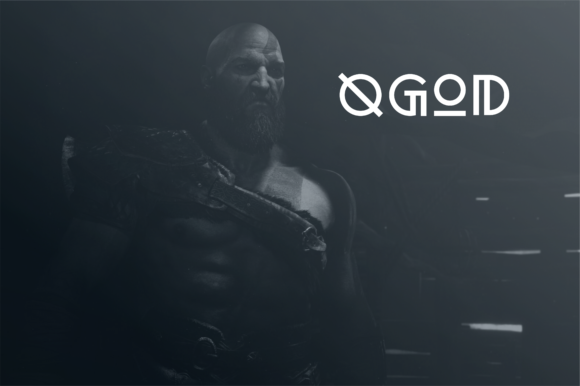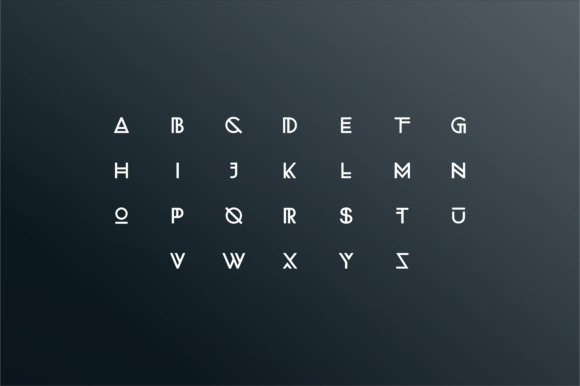
Introduction to Qgod Font
Have you ever been working on a creative project, staring at a blank page, and suddenly, the perfect font pops into your mind? For designers, this moment is pure magic. It’s the spark that sets the tone for an entire design, elevating it from ordinary to extraordinary. And that’s exactly what Qgod Font is – a game-changer for any design project.
As a high-quality, free download, Qgod Font is an incredible resource for designers looking to add a unique touch to their work. Its sleek, minimalistic design is perfect for web designs, business cards, and anything else that requires a futuristic feel. With a transparent background, you can easily layer it over any image or background, giving you endless possibilities for creative expression.
Key Features of Qgod Font
- High-quality design: Qgod Font is a carefully crafted font designed for creative projects, offering a unique and sophisticated look.
- Large character set: The font includes a large character set, including Latin, Cyrillic, and Greek alphabets, making it suitable for a variety of languages.
- High-resolution design: Qgod Font is designed at 300 DPI, ensuring crisp and clear typography even at high resolutions.
- Perfect for creative projects: Qgod Font is ideal for use in creative projects such as branding, packaging, and advertising, where a unique and sophisticated look is required.
Honest Review: Qgod Font
I recently had the chance to try out the Qgod Font, and I’m excited to share my thoughts on this free download. Overall, I was impressed with the quality and versatility of this font.
Here are some things that worked well: ✨
- High quality design: The Qgod Font has a sleek and modern aesthetic that would be perfect for a creative project.
- Transparent background: This made it easy to use the font on top of any image or background.
However, I did encounter a few limitations: ⚠️
- Limited character set: The font only includes a basic set of characters, which may not be sufficient for a complex design project.
- No bold or italic versions: While the regular font is great, it would be nice to have some variations to add some depth to a design.
Overall, I was pleased with the Qgod Font and would recommend it as a design resource. While it may not be suitable for every project, it’s a great option for simple designs or creative projects that need a clean and modern font.
Tips for Getting the Most Out of Qgod Font
Use the Qgod Font on a transparent background to create a seamless design. Experiment with different font weights and styles to add visual interest to your project. You can also use the Qgod Font in combination with other design resources, such as images and graphics, to create a unique and creative project.
The Qgod Font is ideal for use in creative projects, such as infographics, brochures, and social media graphics. It’s also a great choice for use in presentations and documents, where a high-quality and professional font is desired.